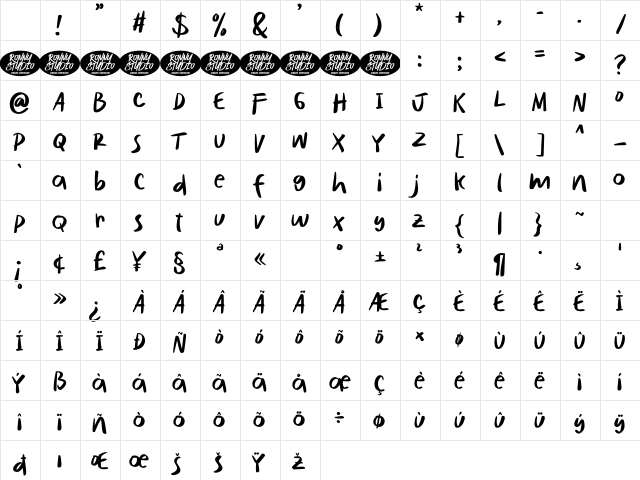
Complete Tulisan Ngawur DEMO Regular glyph index. Displaying only characters natively supported by Tulisan Ngawur DEMO Regular font.
Tulisan Ngawur DEMO is a composed and adaptable typeface that performs quietly and consistently across a wide range of design contexts.